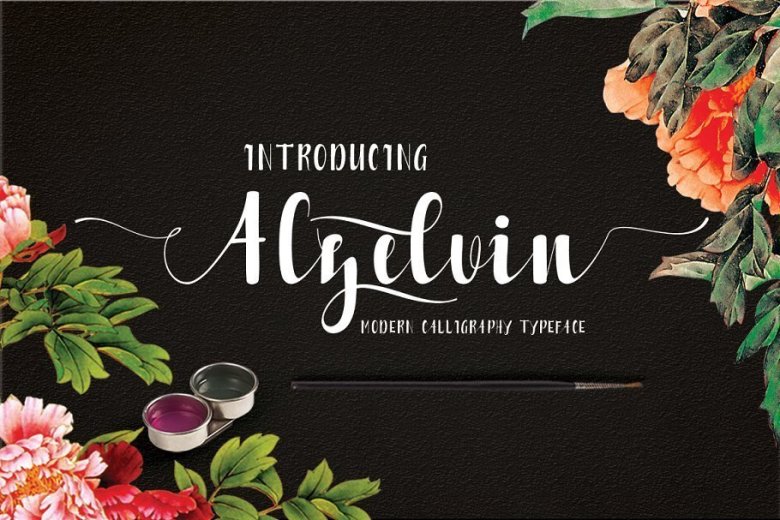
Alzelvin Typeface
Alzelvin Calligraphy Script Typeface is the font style handmade dancing and then live trace to have unique forms of calligraphy, the writing style is very natural. Suitable for any design needs : logo, branding, modern advertising design, logos, poster quote, book / cover Title, editorial design, website / blog, card, t-shirts, and any hand-lettered needs.